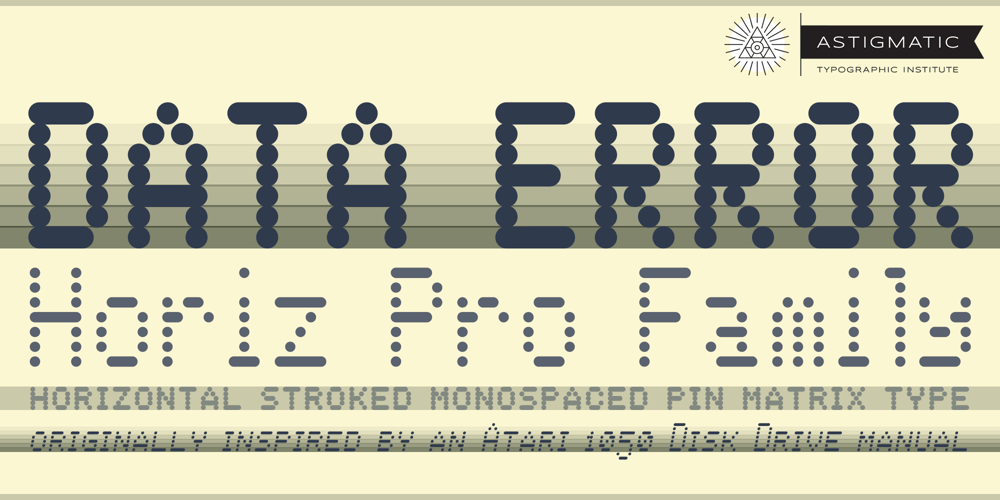
Data Error Horiz AOE Pro
Data Error Horiz AOE Pro font
Data Error Horiz AOE Pro Font Family was designed by Brian J. Bonislawsky and published by Astigmatic. Data Error Horiz AOE Pro contains 4 styles and family package options. The Data Error Horiz AOE Pro family is a spinoff of my Data Error AOE Pro family. Quite simply, it takes on a slightly different feel than the original pin matrix grid by stroking across all horizontal glyph lines. The horizontal lines add more readability to the original grid and lend a more sci-fi vibe to the family.Check out the range of posters created to see the various Capitals, Lowercase, smallcaps and varying styles that the family has to offer and how it both differs from and compliments the original Data Error AOE Pro family.Be sure to note that the “family” price is the same as the “individual” price, so buy the family for the price of a single font!